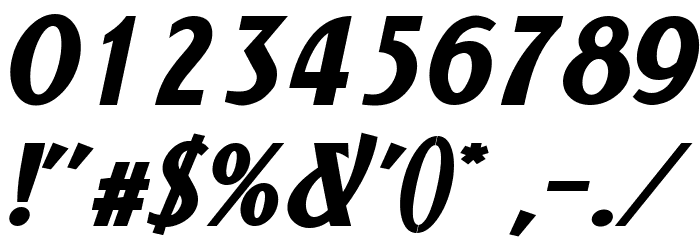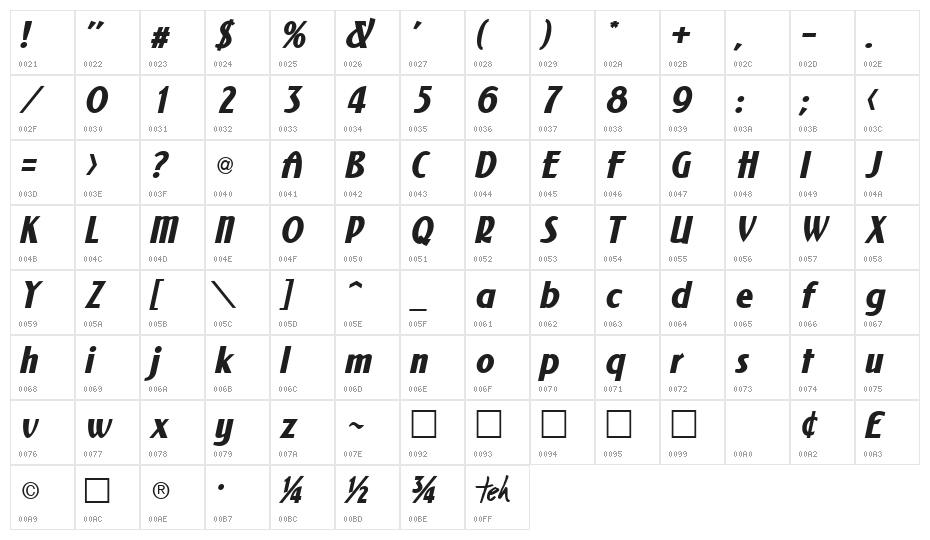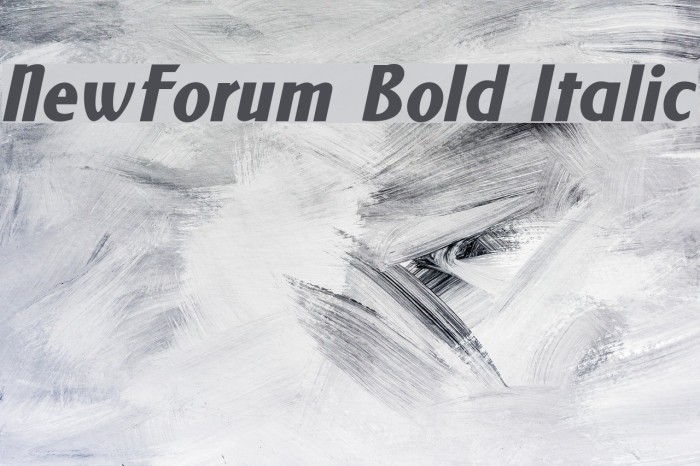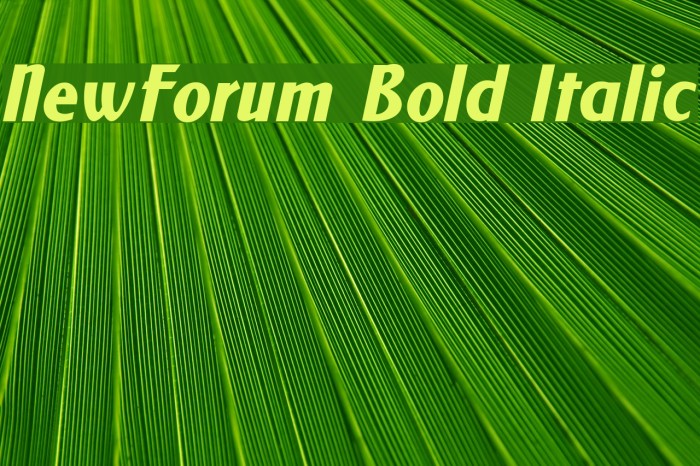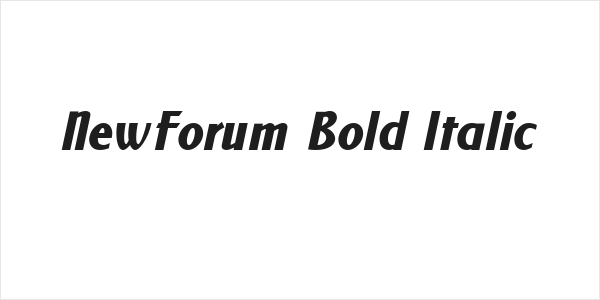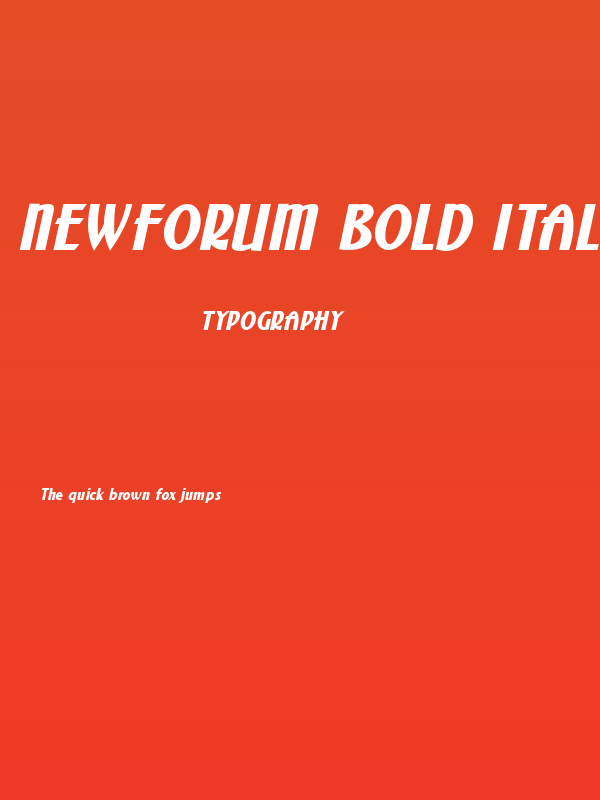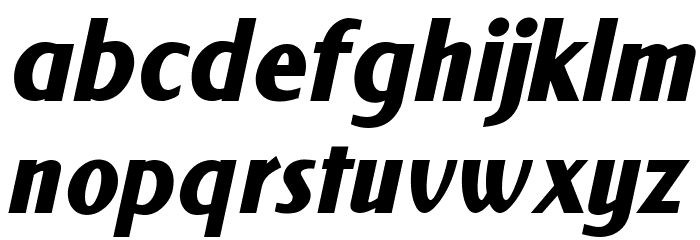
NewForum Bold Italic Font
NewForum Bold Italic Description
This font exhibits a bold and italicized style, characterized by its strong, dynamic strokes and forward-leaning posture. The uppercase letters are robust and commanding, while the lowercase letters maintain a consistent flow, enhancing readability. The numerals are clear and distinct, matching the overall boldness of the alphabet. Special characters are designed with the same attention to detail, ensuring uniformity across all glyphs. The font's bold weight and italic slant give it a modern and assertive appearance, making it suitable for impactful designs.
| Proposed Projects | Ideal for branding, advertising, headlines, and any project requiring a bold and modern typeface. |